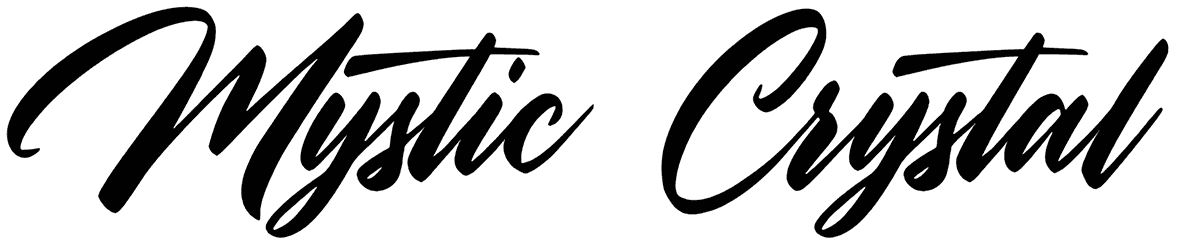
Mystic Crystal Font
Designed byOctotype Thomas Boucherie
Mystic Crystal is a slanted bold font that gives off the feeling of elegance with ease. It can be a good choice if you are interested in instilling a sense of graceful intimacy and personalized touch. In developing this font, more focus has been placed on elegance rather than readability.
As a result, Mystic Crystal can be a better choice for personal correspondence or branding and works best in informal contexts.